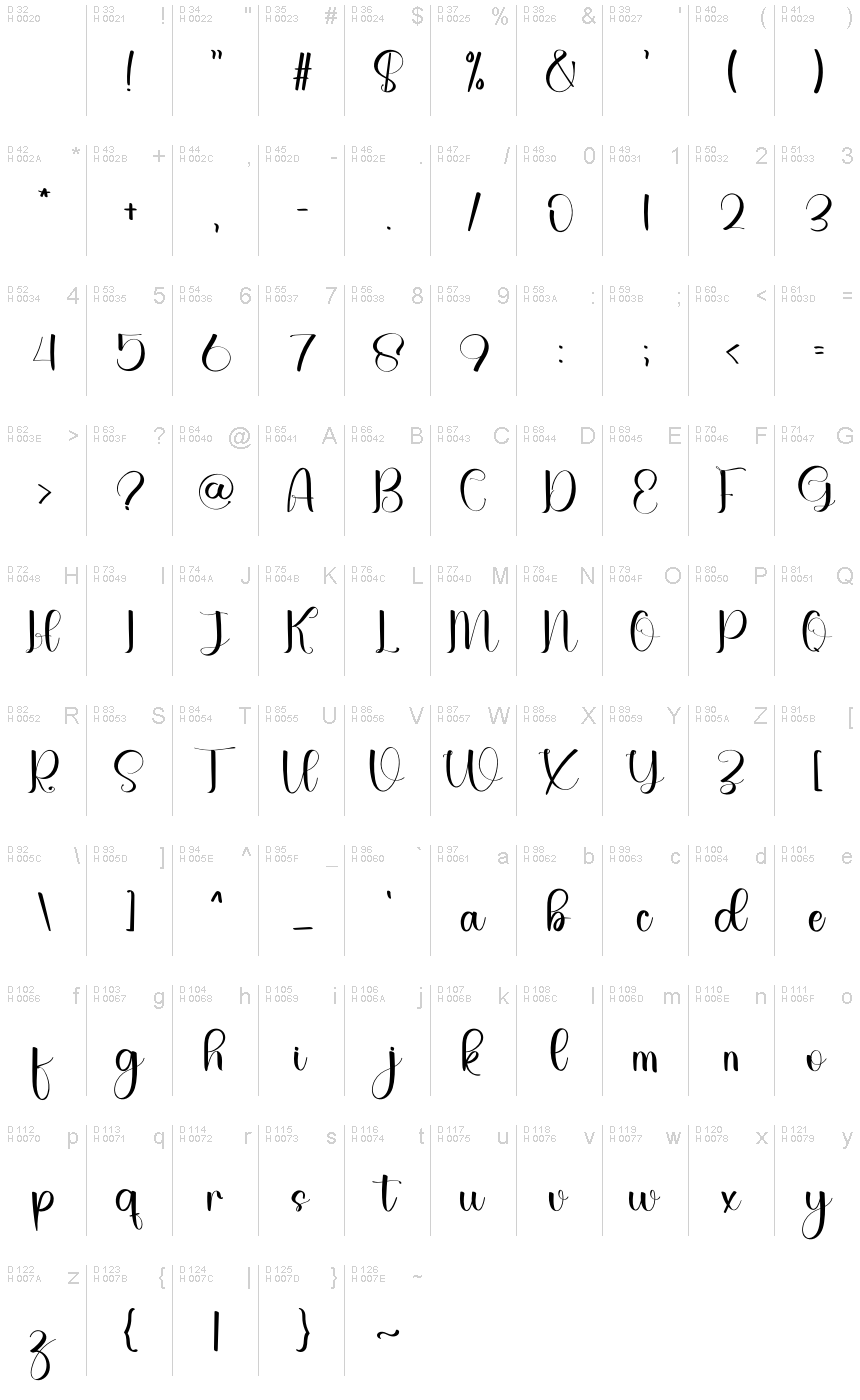
Dark
Dark, from the creative minds at PiPi Creative, is a font that exudes personality with its handwritten style. Its fluid strokes and varied line thickness breathe life into each character, as if penned by an artist in a moment of inspiration. The playful loops and elegant curves lend the font an organic charm that captures the spontaneity of human touch.
This font's aesthetic appeal lies in its casual sophistication, making it perfect for designs that require a personal touch. Whether it’s to grace the pages of an artisanal coffee shop menu or to add character to wedding invitations, Dark invites warmth wherever it's used. It balances intimacy with legibility—a versatile choice for branding, editorial design, and personalized stationery.